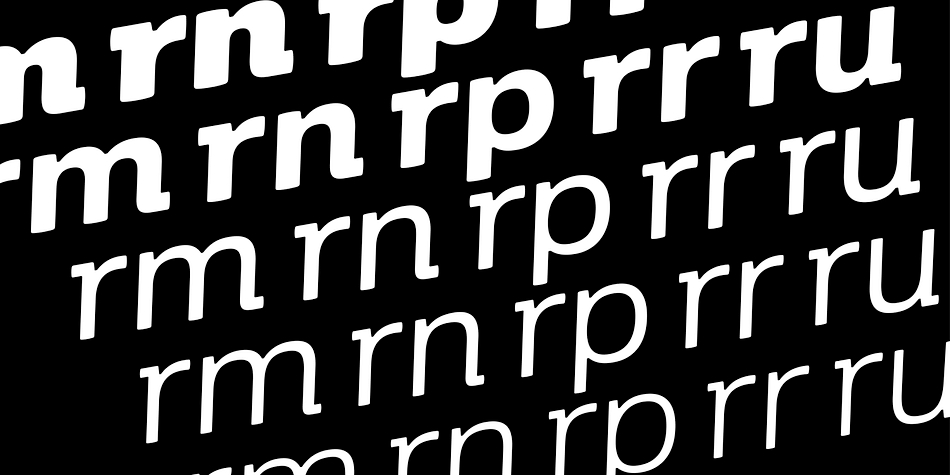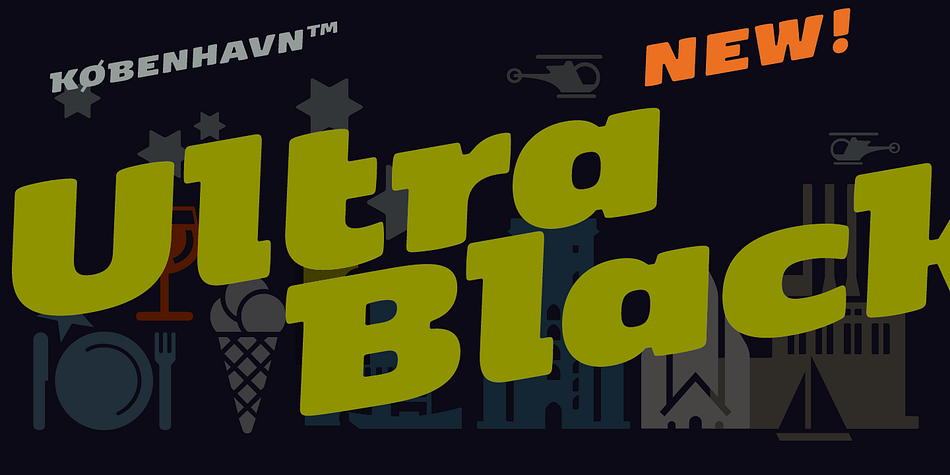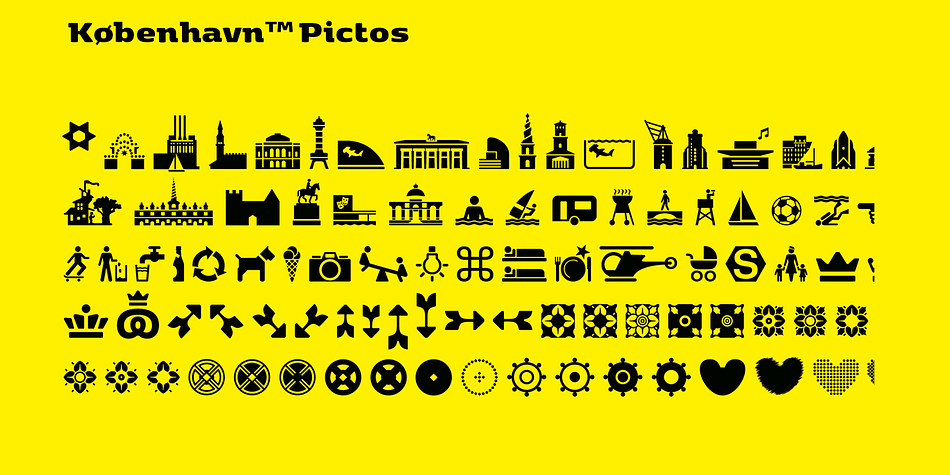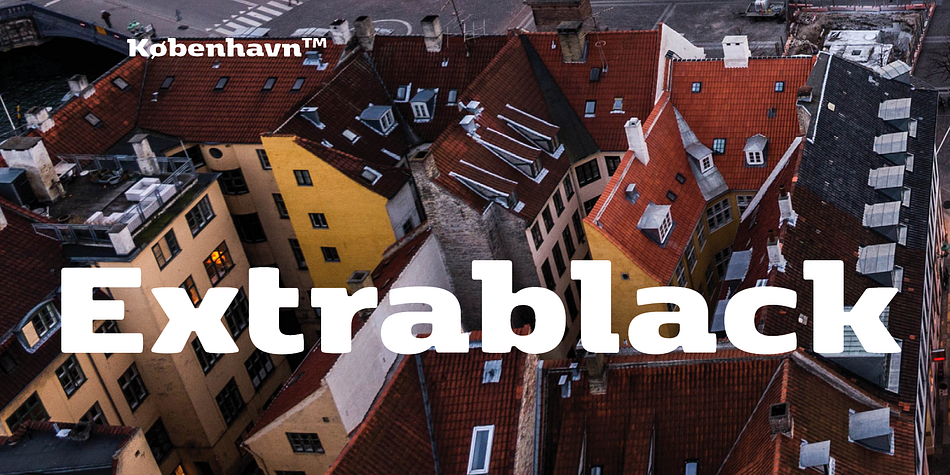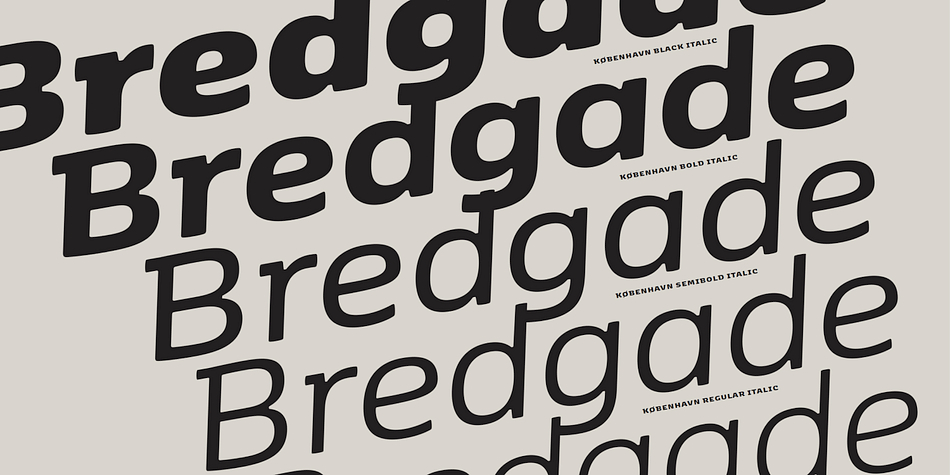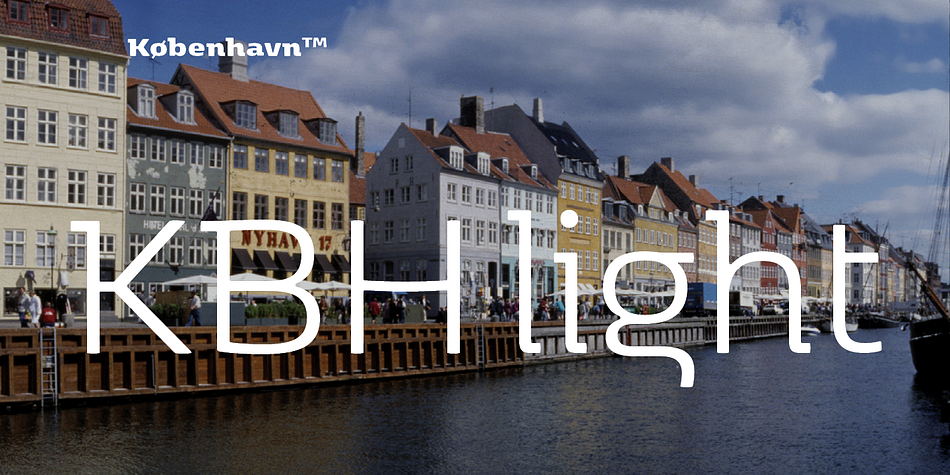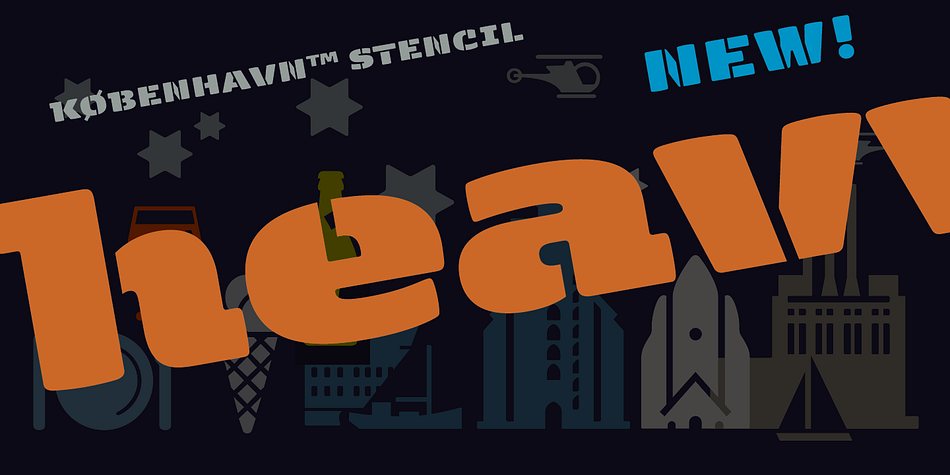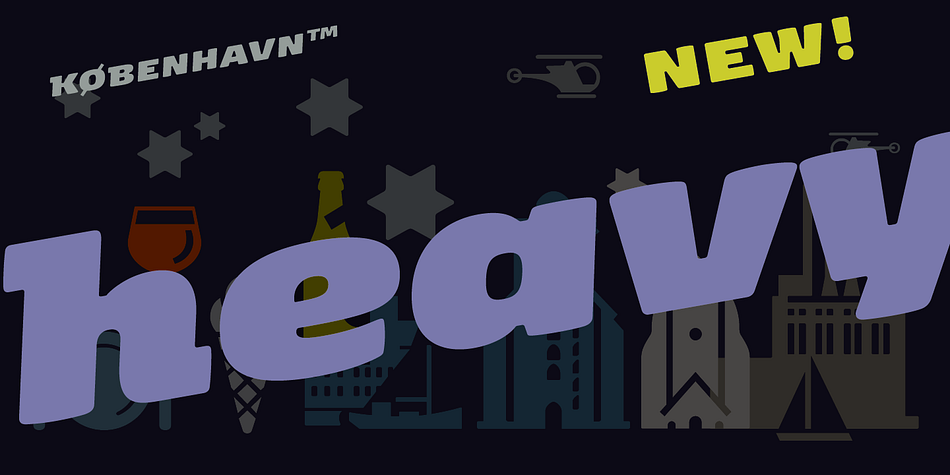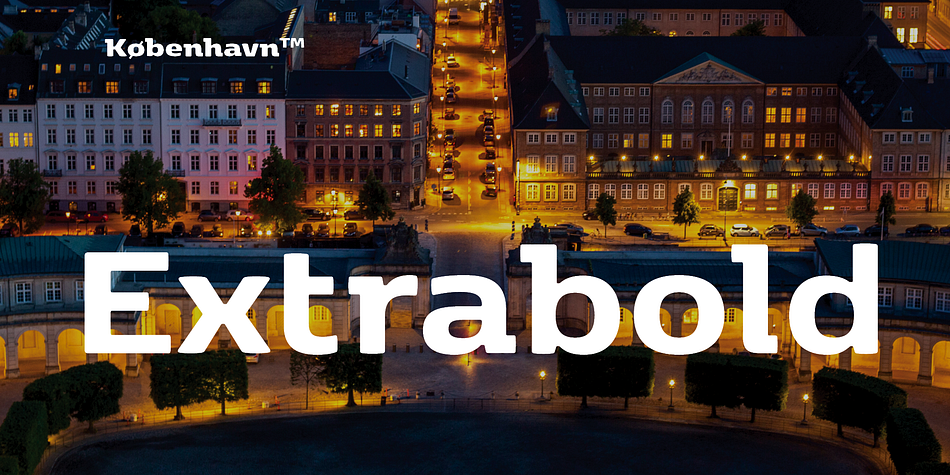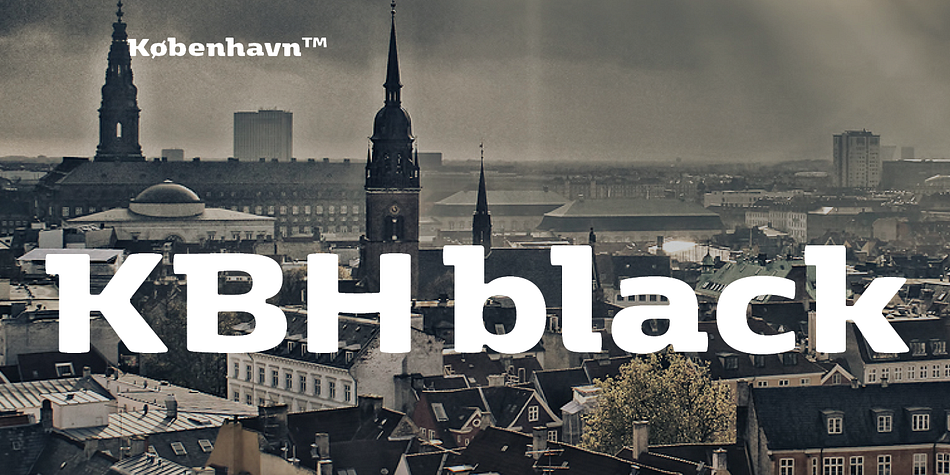
Designed by Henrik Birkvig and Morten Olsen, FP København is a multiple classification font family. This typeface has twenty-nine styles and was published by Fontpartners.
The danish capital Copenhagen has been in need of a typeface that unites the city’s many visual expressions.
The three designers Morten Rostgaard Olsen, Henrik Birkvig and Ole Søndergaard have designed and developed the typeface FP København. Now available in 23 styles: Uprights, italics & stencils, small caps, pictos-characters, sprayed style, all containing OT-features, ligatures, contextual alternates etc.
The shape of the letters are inspired by the city’s culture and the visual environment and design in Denmark in the 20th century.
It is relatively low and wide as the city itself and with rounded corners that give it a warm visual mood.
“You can find examples of the use of a typeface with the same purpose in other parts of the world, for example, to identify local areas or urban tourism materials. FP København is our take on that kind of typeface” the designers add.